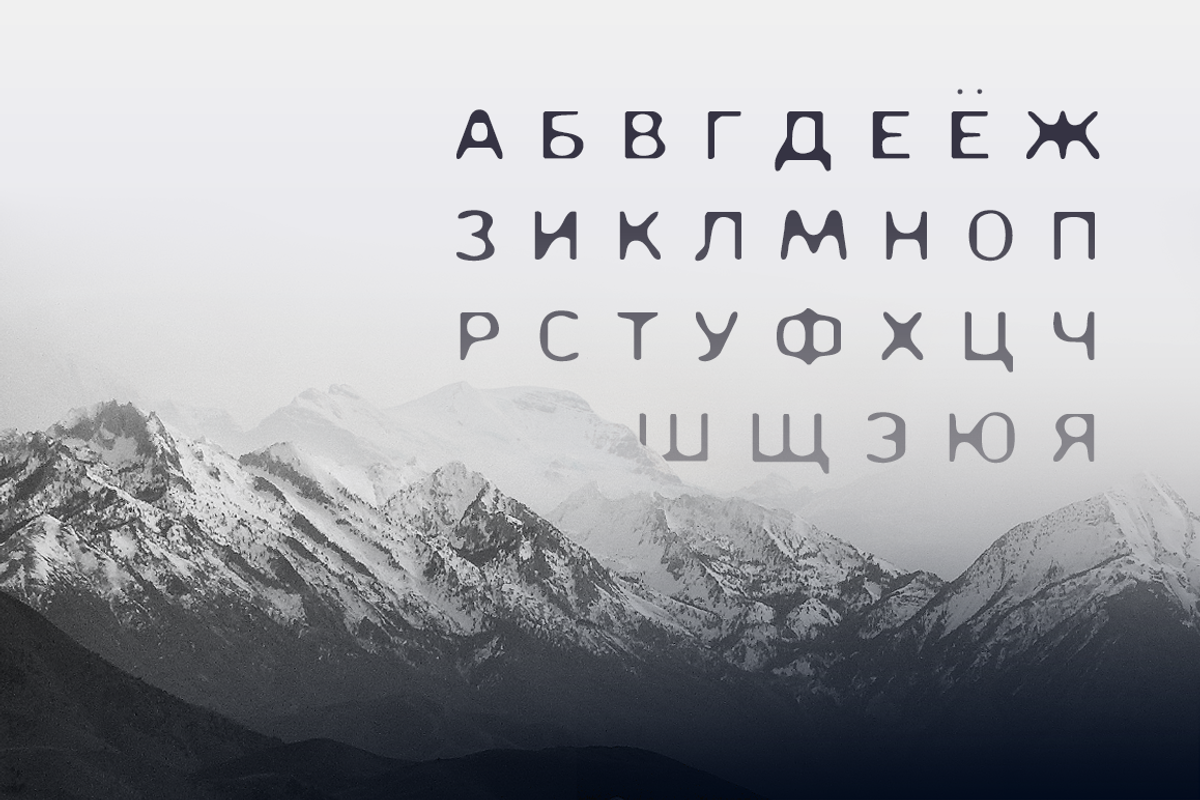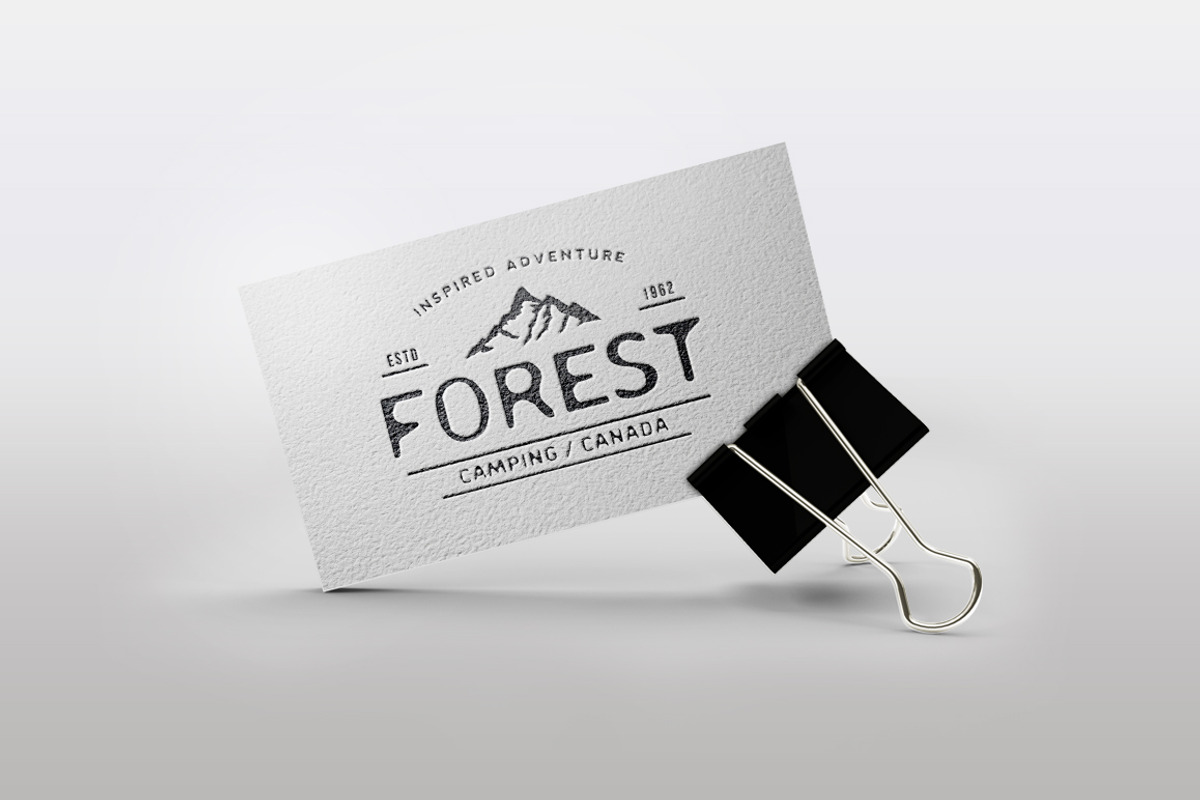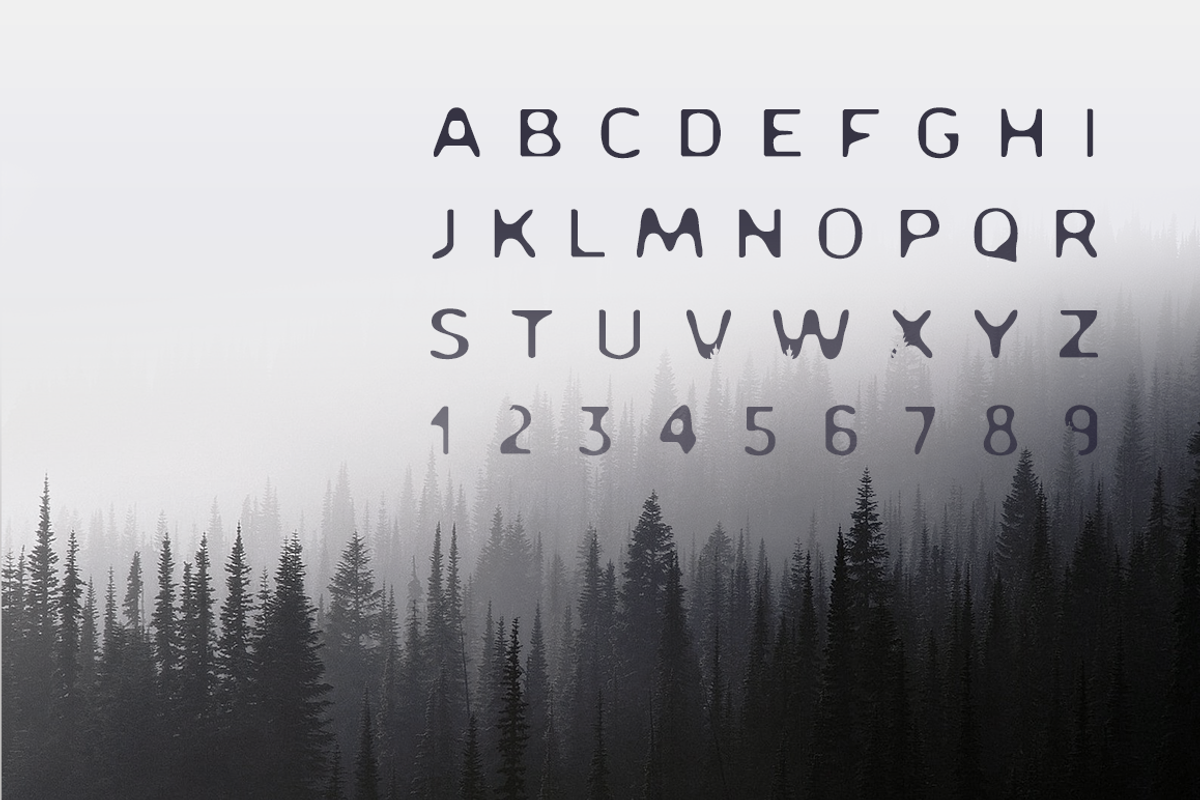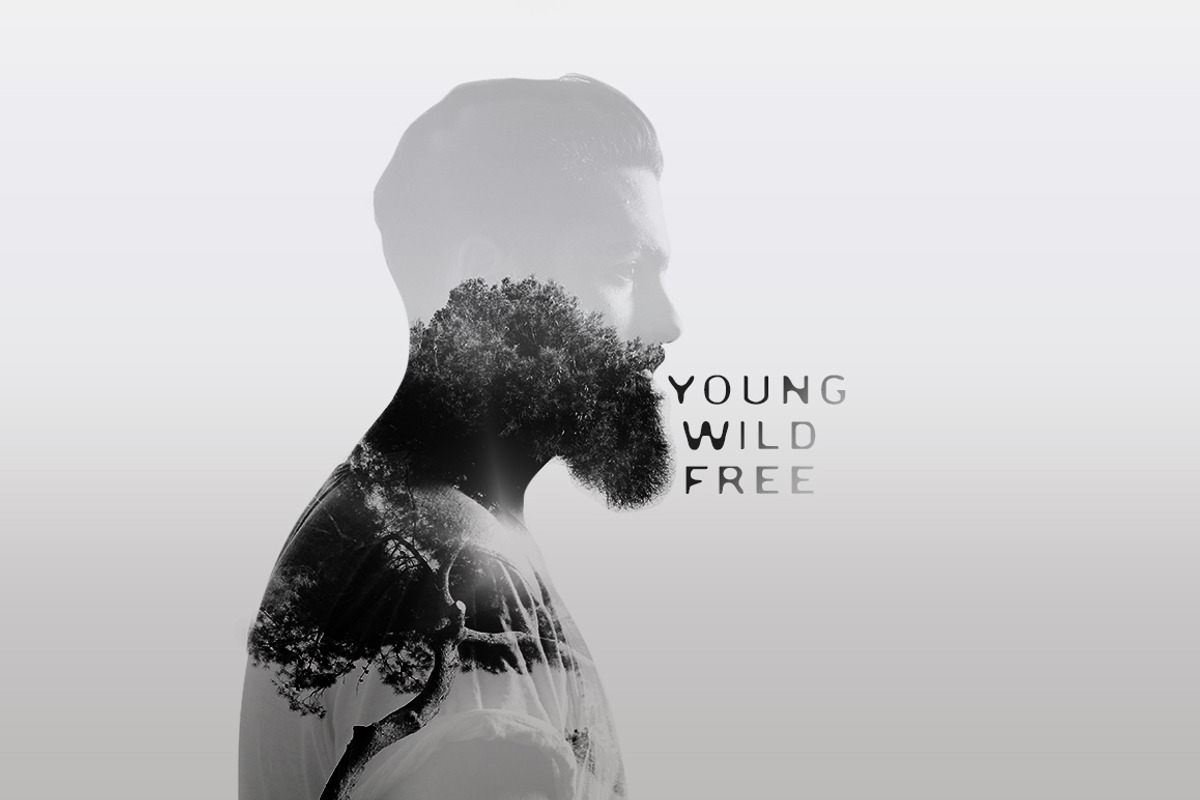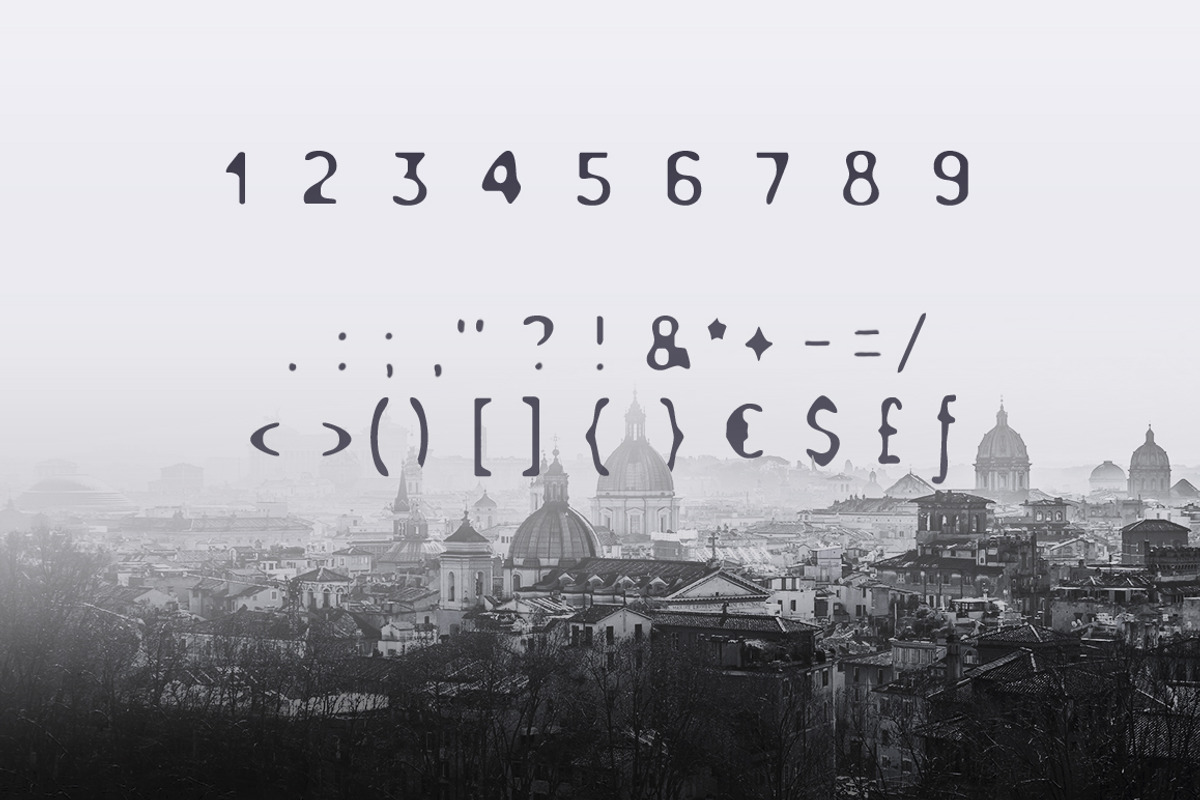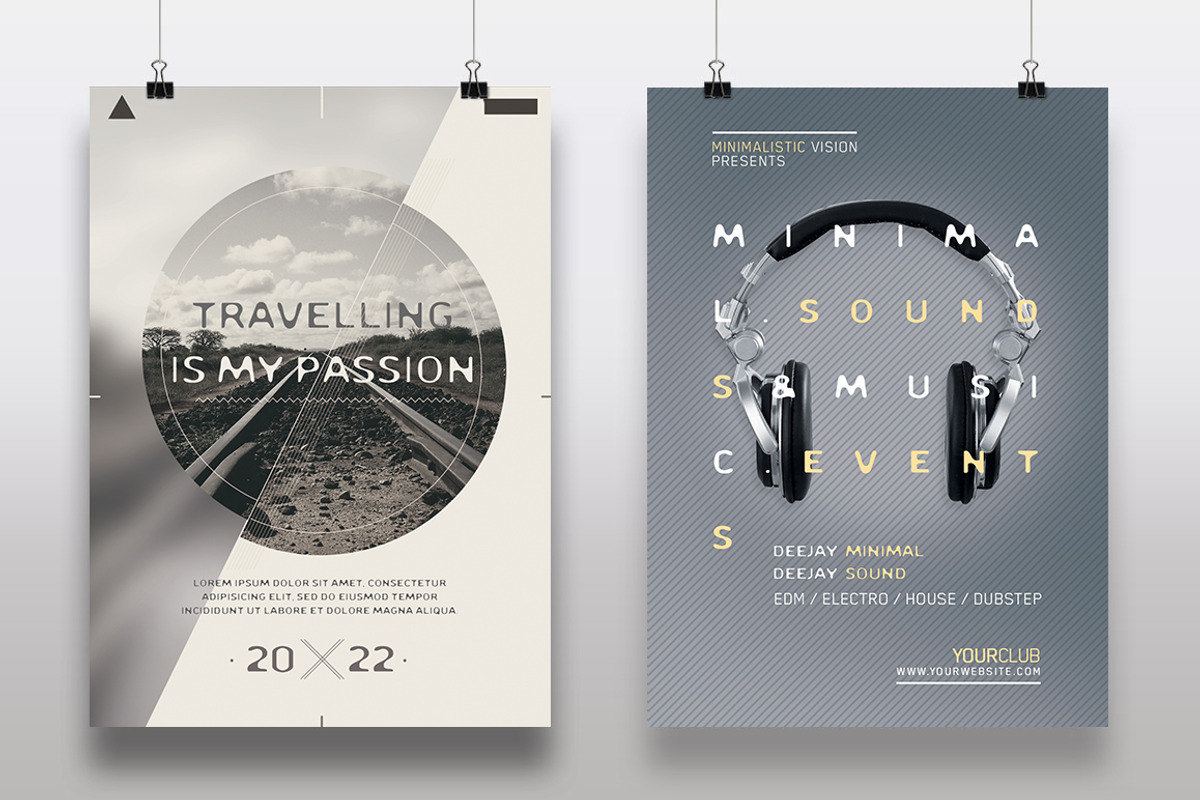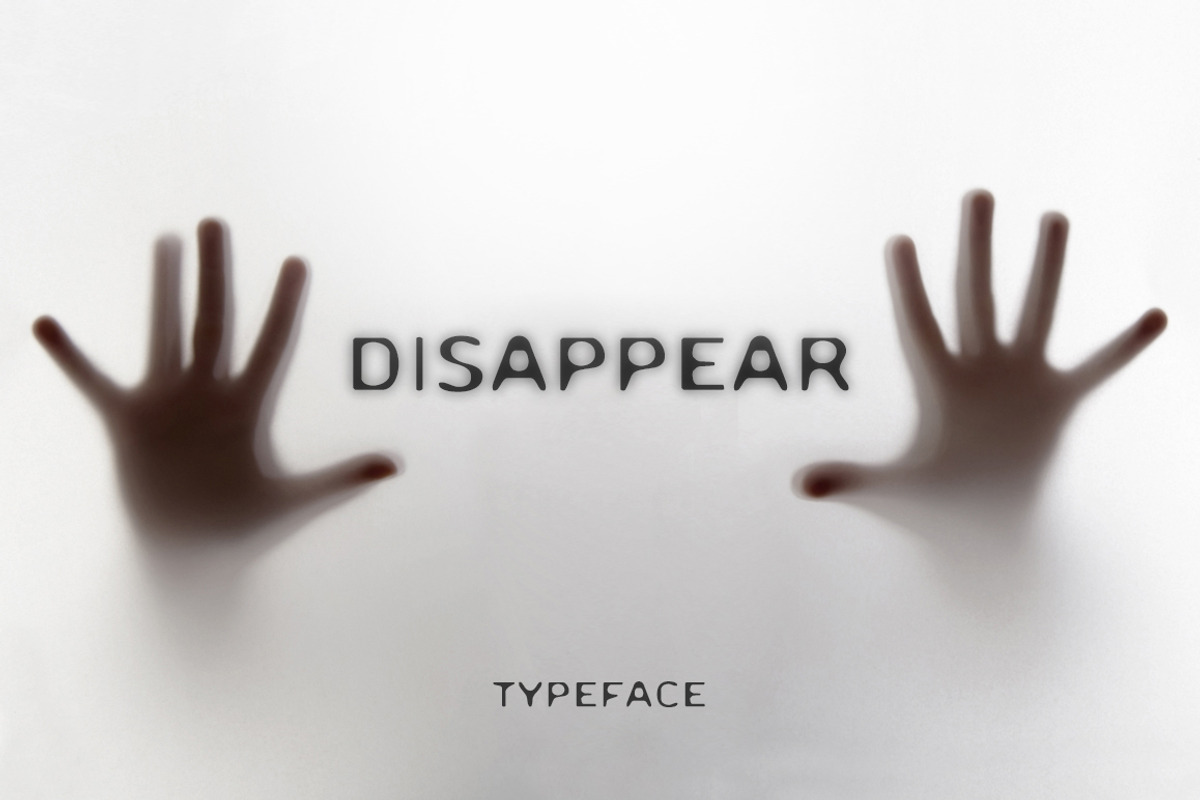
Disappear. Sans Serif Font
Disappear. Sans Serif Font by Cosmic Store is a font selected for branding, posters, packaging, typography.
Why Disappear. Sans Serif Font is worth a look
Disappear. Sans Serif Font by Cosmic Store fits naturally into Branding, posters, packaging, typography.